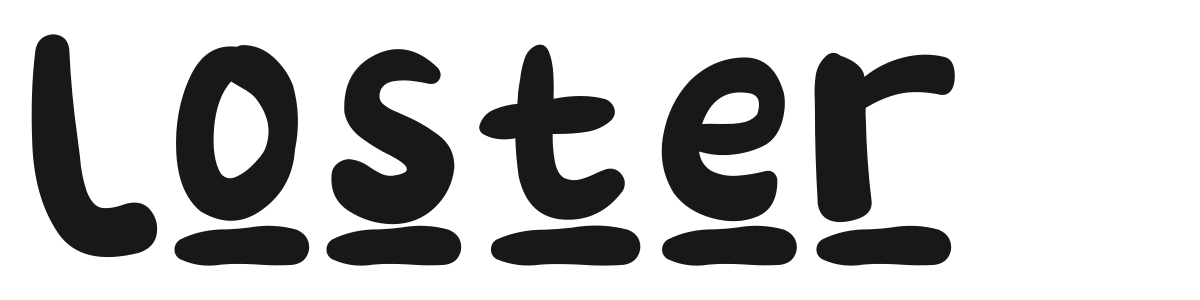
Loster
Loster is a bold, hand-drawn display font with chunky rounded strokes and a lively, wobbly baseline. The thick characters carry a comic-book energy that works well for youth-oriented brands, food packaging, and casual headlines. It reads as genuinely hand-lettered rather than mechanically constructed.